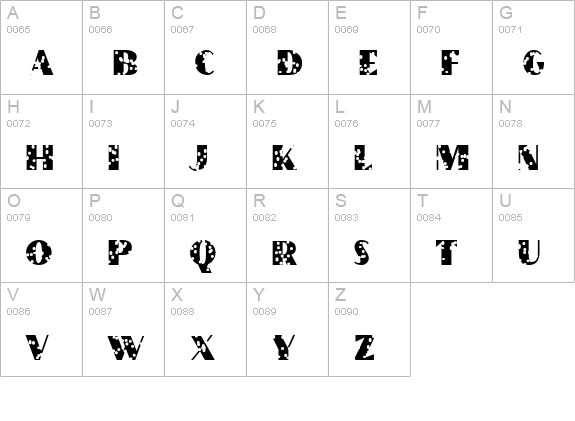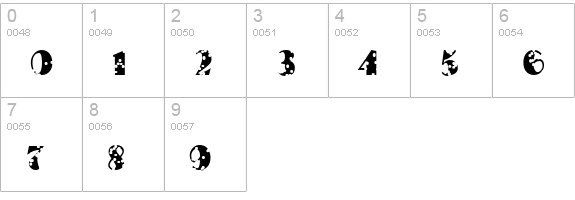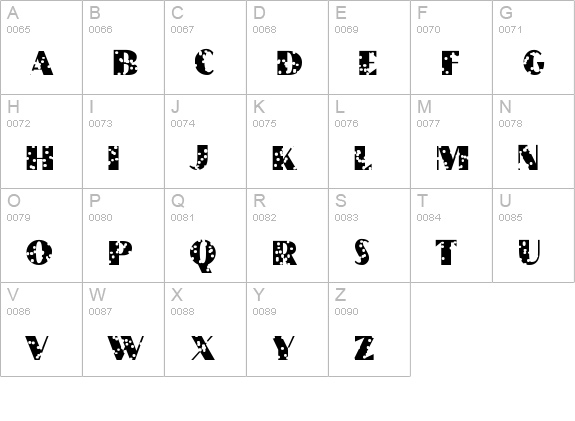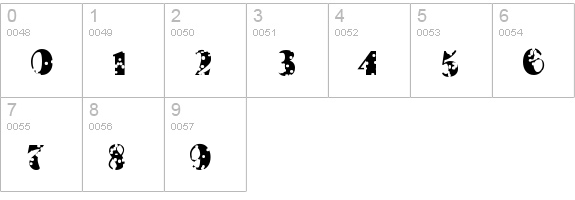
GrandecortHoly is a stunning and elegant font that exudes sophistication and grace. Its intricate details and ornate design make it perfect for adding a touch of luxury to any project. The flowing curves and decorative elements of this font give it a timeless and classic appeal that is sure to make a statement. What makes GrandecortHoly even more special is that it is available for free download at FontsMarket.com. This means that you can easily access and use this beautiful font in your designs without any cost. Whether you're working on a wedding invitation, branding materials, or any other creative project, GrandecortHoly is sure to elevate your work to the next level. Don't miss out on the opportunity to enhance your designs with the exquisite beauty of GrandecortHoly. Download this free font today and see the difference it can make in your projects.